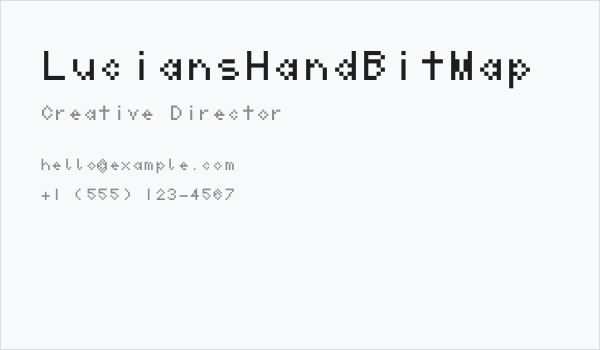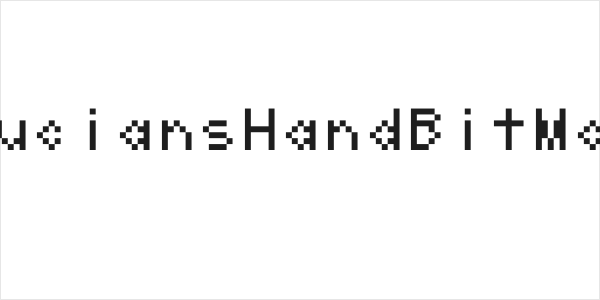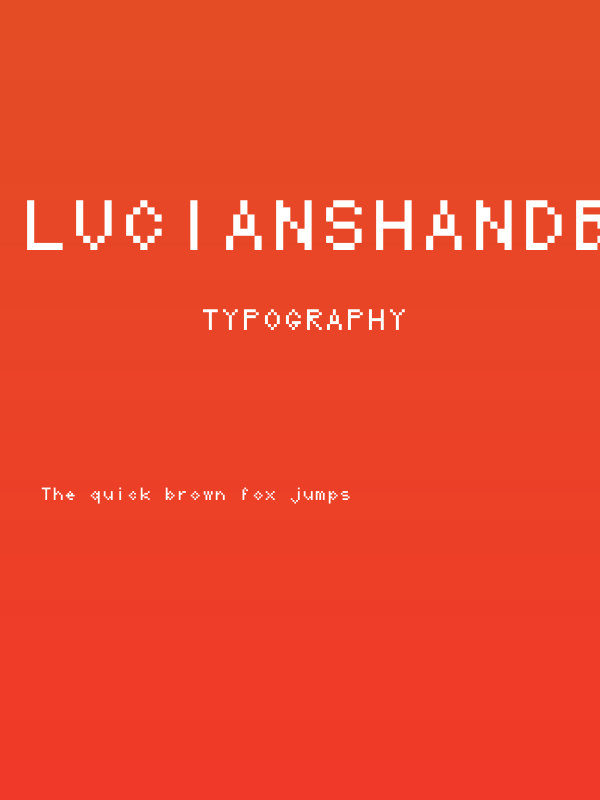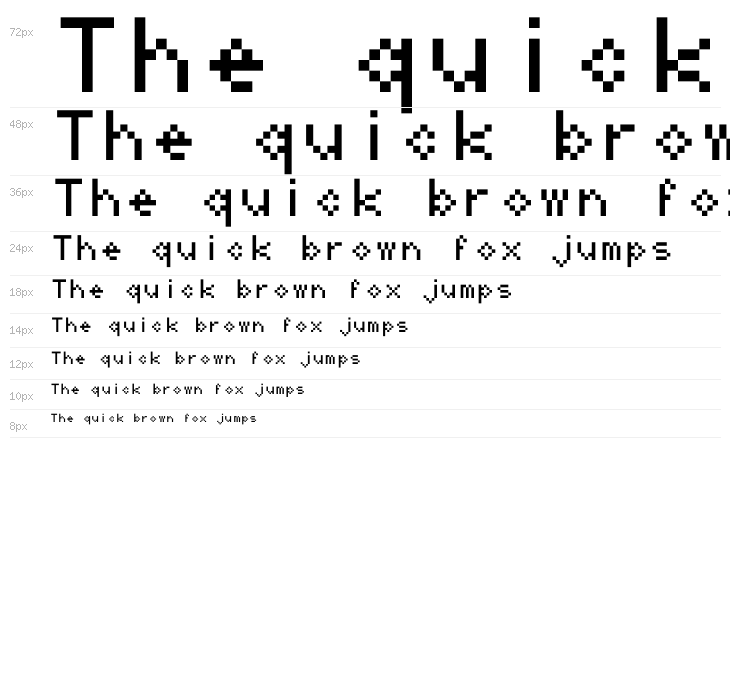
LuciansHandBitMap Font
LuciansHandBitMap Description
This font features a pixelated, bitmap style reminiscent of early computer graphics and video games. Each character is constructed with a grid-like precision, giving it a distinctly retro and digital appearance. The uppercase and lowercase letters maintain a consistent height and width, contributing to a uniform and structured look. The numerals and special characters follow the same pixelated design, ensuring a cohesive aesthetic across all glyphs. This font's simplicity and clarity make it highly legible, even at smaller sizes, while its nostalgic charm adds a playful touch to any design.
| Overall Style | Retro, Digital |
| Use Case | Logos, Headlines, Digital Art |
| Proposed Projects | Ideal for retro video game designs, digital art projects, and nostalgic-themed branding. |